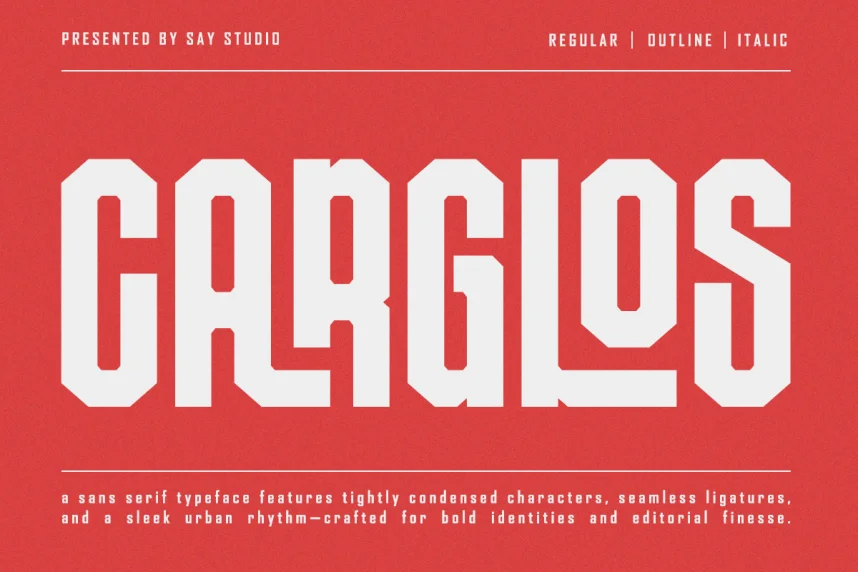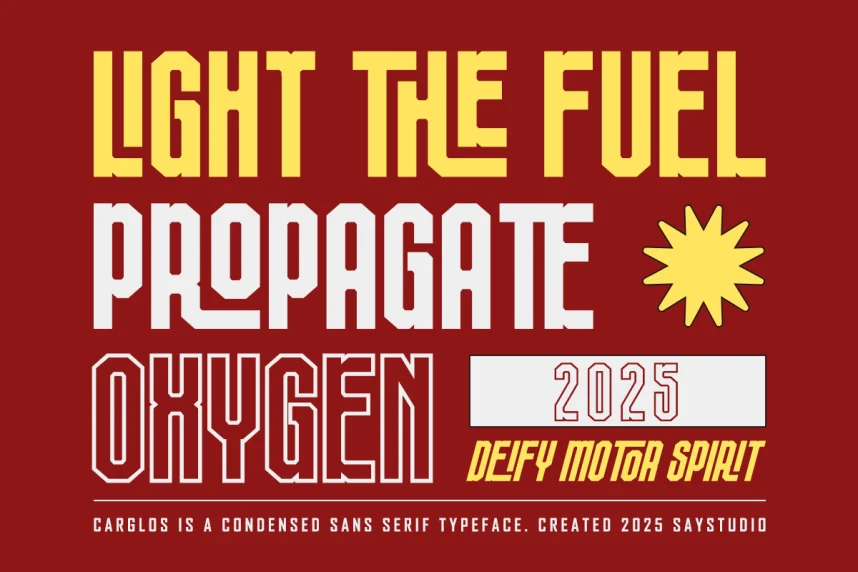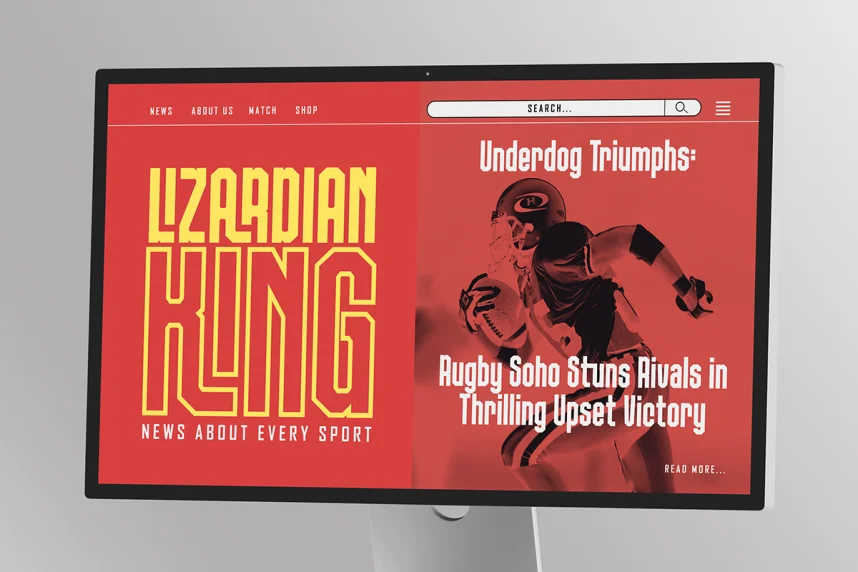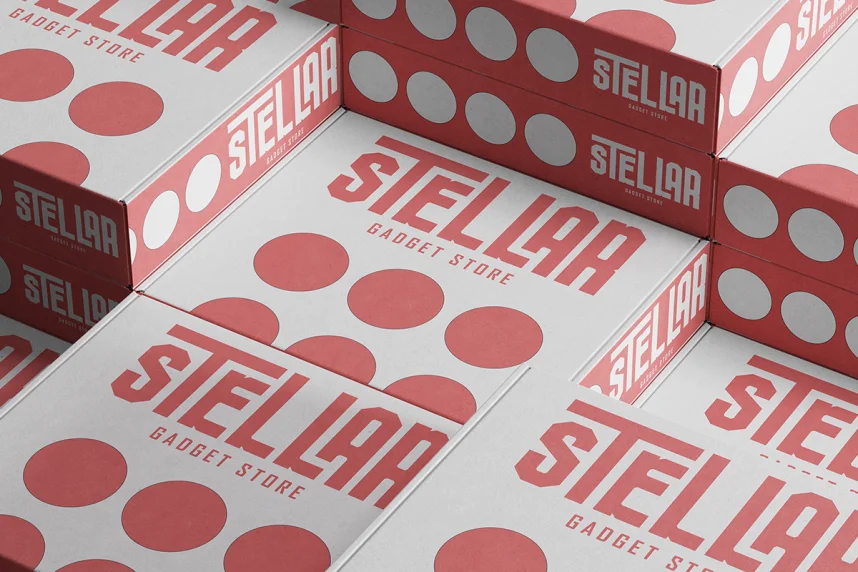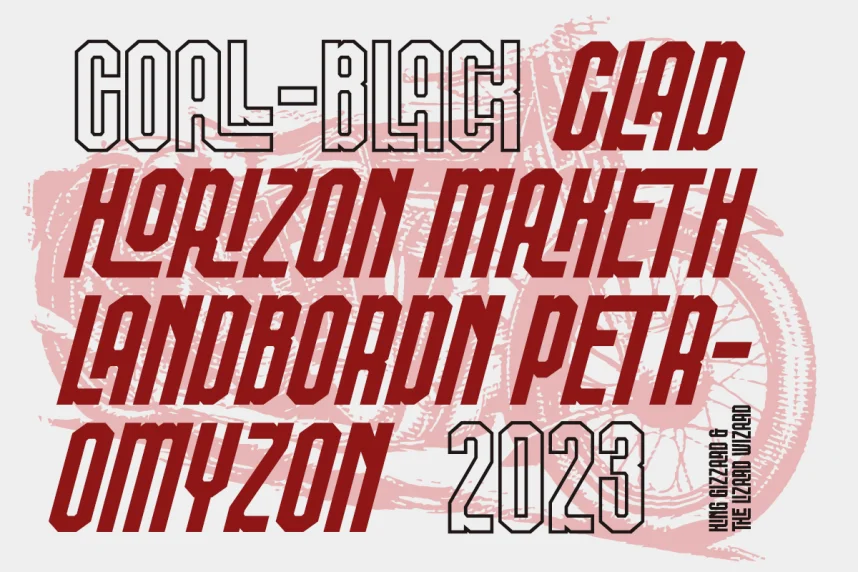
Carglos Font is a geometric sans-serif typeface designed to improve clarity and consistency in branding, web design, and digital interfaces. It addresses common design challenges such as maintaining legibility across varying screen sizes, creating strong visual hierarchy, and supporting professional identity in logos or marketing materials.
Carglos features uniform stroke widths, clean terminals, and open counters, which contribute to high readability. The typeface includes standard ligatures, numeric sets, and multilingual support. Its modern, minimalistic structure makes it suitable for digital platforms, printed brochures, and corporate stationery. Designers often rely on Carglos for structured layouts that require both aesthetic balance and functional clarity.